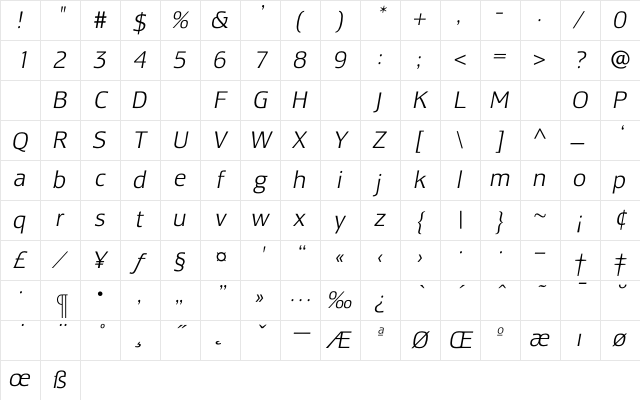
LesmoreLightItalic is a composed and adaptable typeface that performs quietly and consistently across a wide range of design contexts. The slanted form adds forward momentum and visual energy. Its slender proportions lend an understated elegance to any composition.